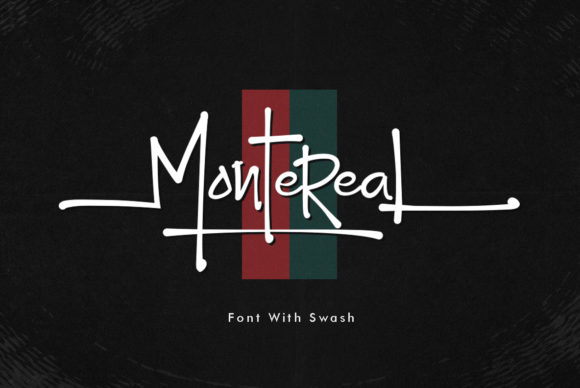
Journey into the realm of artistry with Motereal Font, a captivating script that ignites creativity with every stroke. Unleash your inner designer and let your imagination run wild with this modern and bold typeface. Picture perfect logos, alluring social media posts, and breathtaking invitations that radiate individuality. It's time to make a statement and leave a lasting impression with Motereal Font. Embrace the art of typography and elevate your designs to new heights.
Crafted with precision and passion, Motereal Font exudes a sense of playfulness and uniqueness that sets it apart from the ordinary. Its dynamic curves and eye-catching lines add a touch of enchantment to any project. Whether you're a seasoned designer or just starting your creative journey, Motereal Font is your perfect companion.
Discover the boundless possibilities of Motereal Font. Dive into the world of branding, social media, and print design with confidence. Create logos that captivate your audience, social media posts that spark conversations, and printed materials that leave a lasting impression. The creative possibilities are endless with Motereal Font.
Make your designs soar with Motereal Font and unlock a world of creativity that knows no bounds. Embrace the extraordinary and let your imagination take center stage. Your designs deserve the best, and Motereal Font is ready to elevate them to new heights. Experience the magic of Motereal Font today and let your creativity shine!